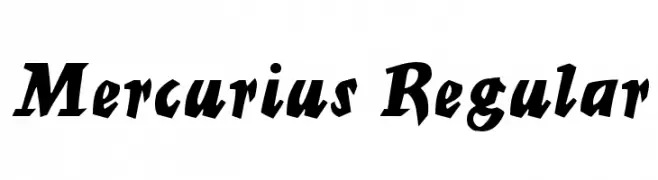
( Fonts by Graham Meade - GemFonts )
A rugged, distressed font with a hand-drawn appearance.
( Fonts by Graham Meade - GemFonts )
A dynamic italic font with moderate contrast and a distinctive style.
( Fonts by Casady & Greene )
A modern serif font with sharp serifs and high contrast, ideal for dramatic designs.
A whimsical, hand-drawn medical icon font with bold, playful designs.
A decorative font with medical-themed icons and symbols.
Hand-drawn, illustrative font made from meeting scene sketches.
( Fonts by Renn Crump - http://moorstation.org/typoasis/designers/renncrump/ )
A bold, gothic-style Blackletter font with intricate detailing.
( Fonts by Renn Crump - http://moorstation.org/typoasis/designers/renncrump/ )
A bold, shadowed font with sharp serifs and a three-dimensional effect.
A playful decorative font with unique stick figure characters.
( Fonts by Rick Mueller )
A bold, high-contrast font with a dynamic, italicized style.